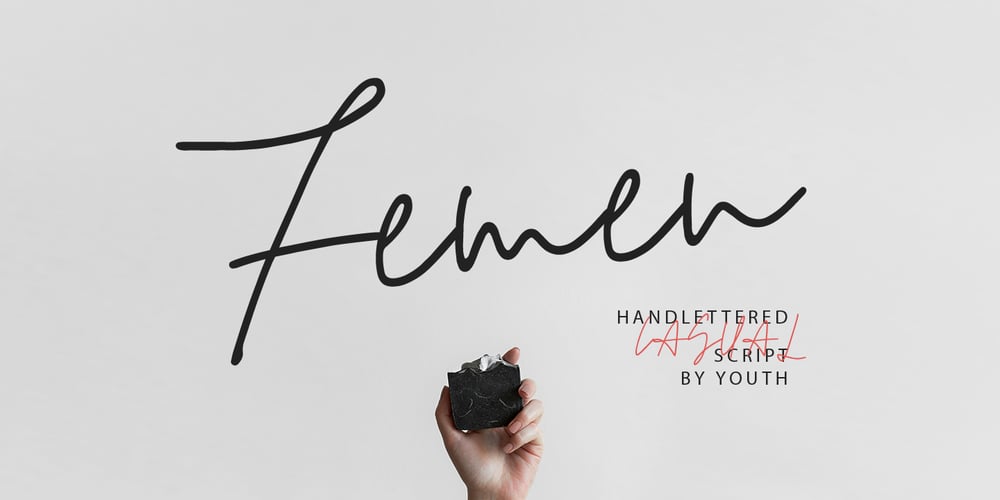
Femen Font Family was designed by Dmitrii Chirkov and published by Supfonts. Femen contains 1 styles and family package options. Introducing the elegant new Femen Calligraphy Font! For those of you who are needing a touch of elegance and modernity for your designs, this font was created for you! Femen was built with OpenType features and includes beginning and ending swashes, alternate swash characters for most lowercase letters, numbers, punctuation, alternates, ligatures and it also supports all latin languages ๐